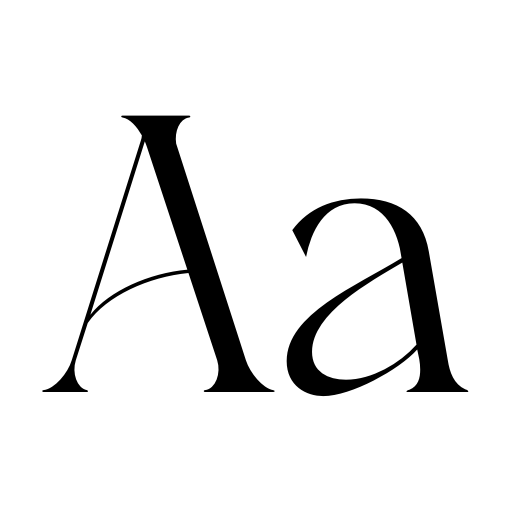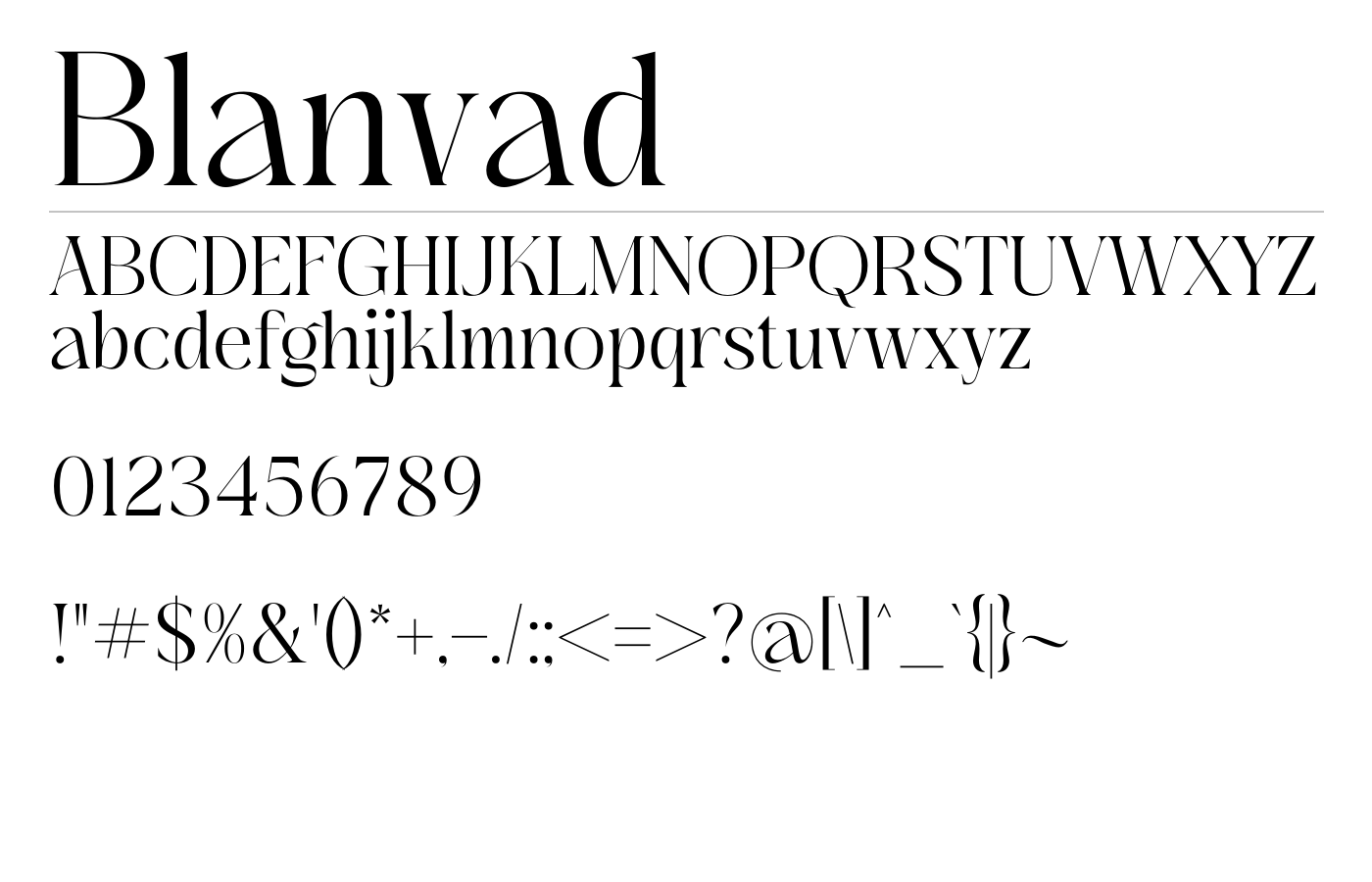
Blanvad is a sophisticated serif font with a modern Didone style, characterized by high contrast between thick and thin strokes and delicate, bracketed serifs. Its elegant, narrow letterforms and refined details make it perfect for luxury branding, editorial headlines, and fashion-focused design, conveying a sense of timeless elegance and high-end sophistication. This font works beautifully in contexts where a polished, graceful appearance is desired.
Blanvad Font
About Blanvad Font